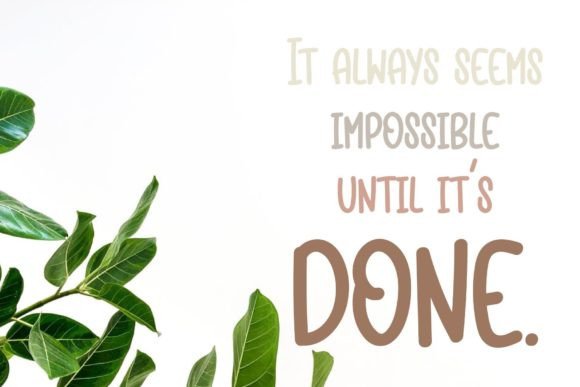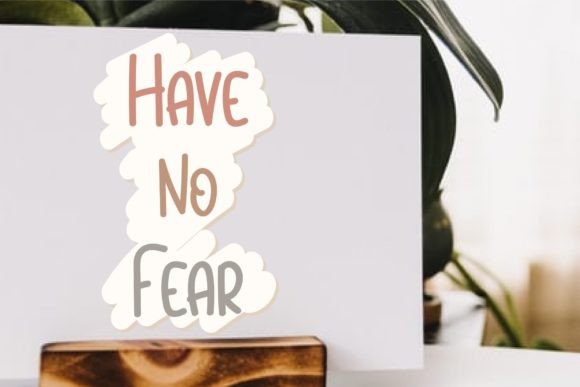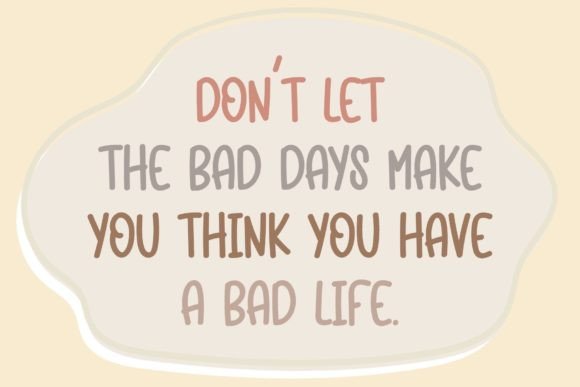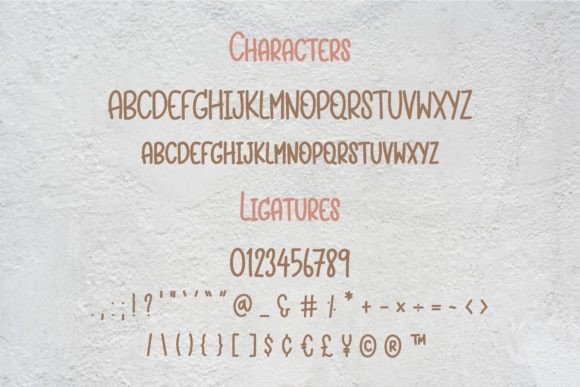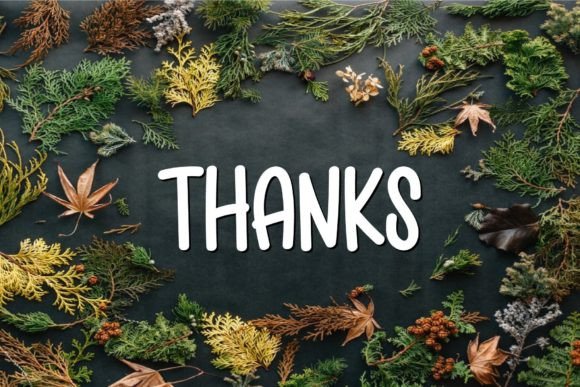
Introduction to Sharlot Font Font
Fonts play a crucial role in design, and the Sharlot Font font is a typeface that brings both character and versatility to any project. Whether you’re working on a branding project, a website, or a print design, the Sharlot Font font offers a unique style that can elevate your work.
| π Font Name | Sharlot Font |
| π€ Author | Wanida Toffy |
Sharlot is a simple and joyful handwritten font.
Its casual charm makes it appear wonderfully down-to-earth, readable, and ultimately, incredibly versatile This will look outstanding in any context, whether itβs being used on busy backgrounds or as a standalone headline.
Key Features of Sharlot Font Font
Why Choose Sharlot Font Font?
The Sharlot Font font is more than just a typeface β it’s a design tool that helps you communicate your message with style and clarity. Its unique character set and versatile design make it suitable for a wide range of applications, from elegant invitations to bold headlines.
With its carefully crafted letterforms and balanced proportions, the Sharlot Font font ensures readability and visual appeal across all mediums.
What makes Sharlot Font font special?
The Sharlot Font font stands out with its unique design, exceptional readability, and versatility across various design applications.